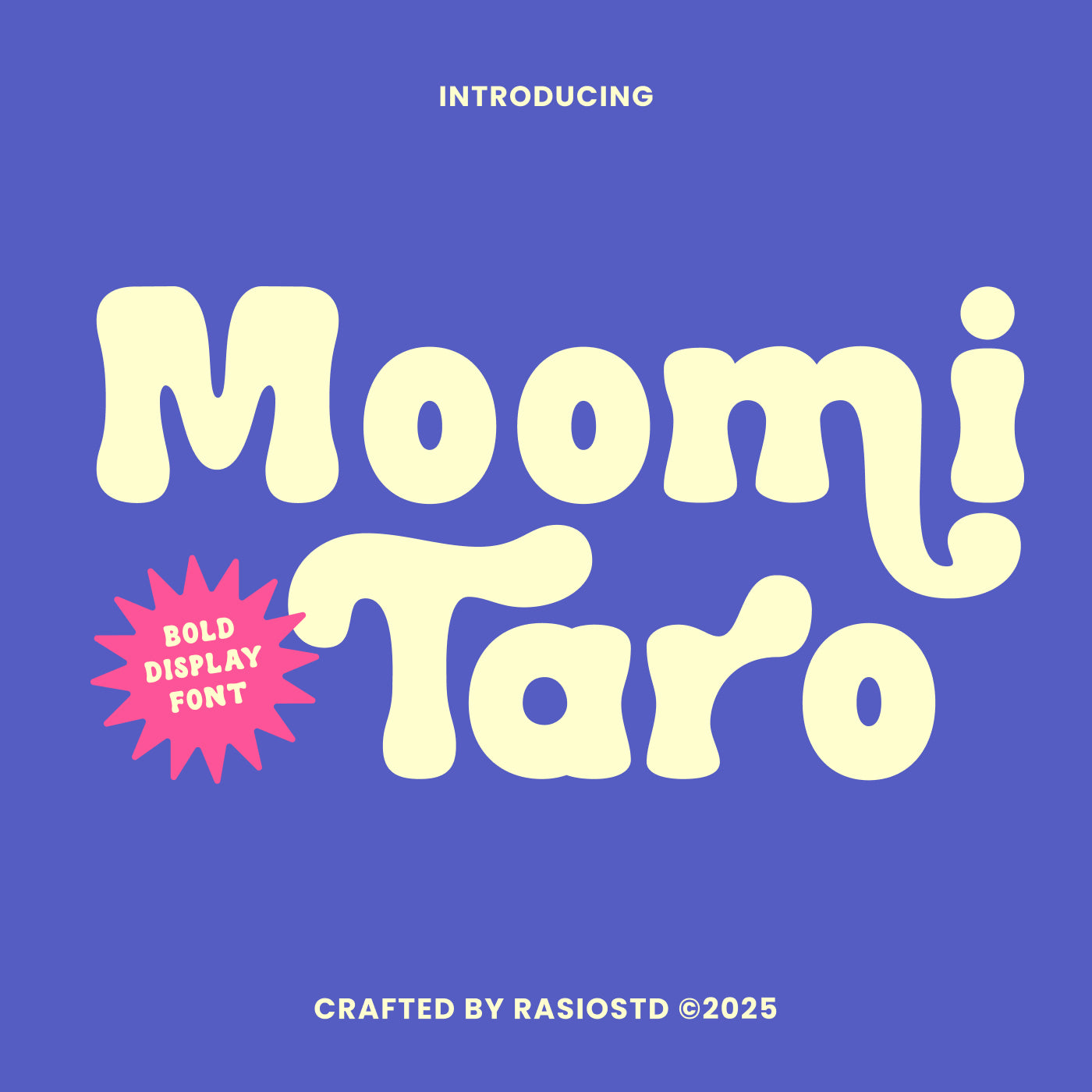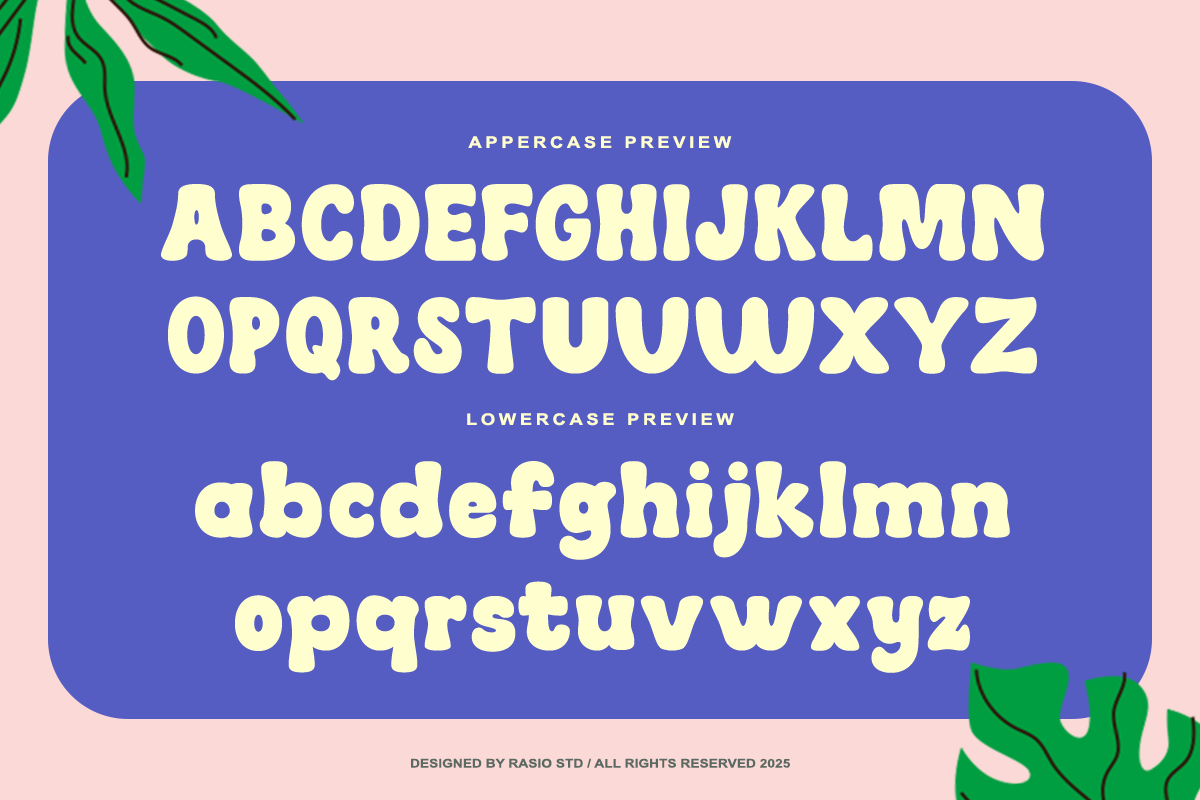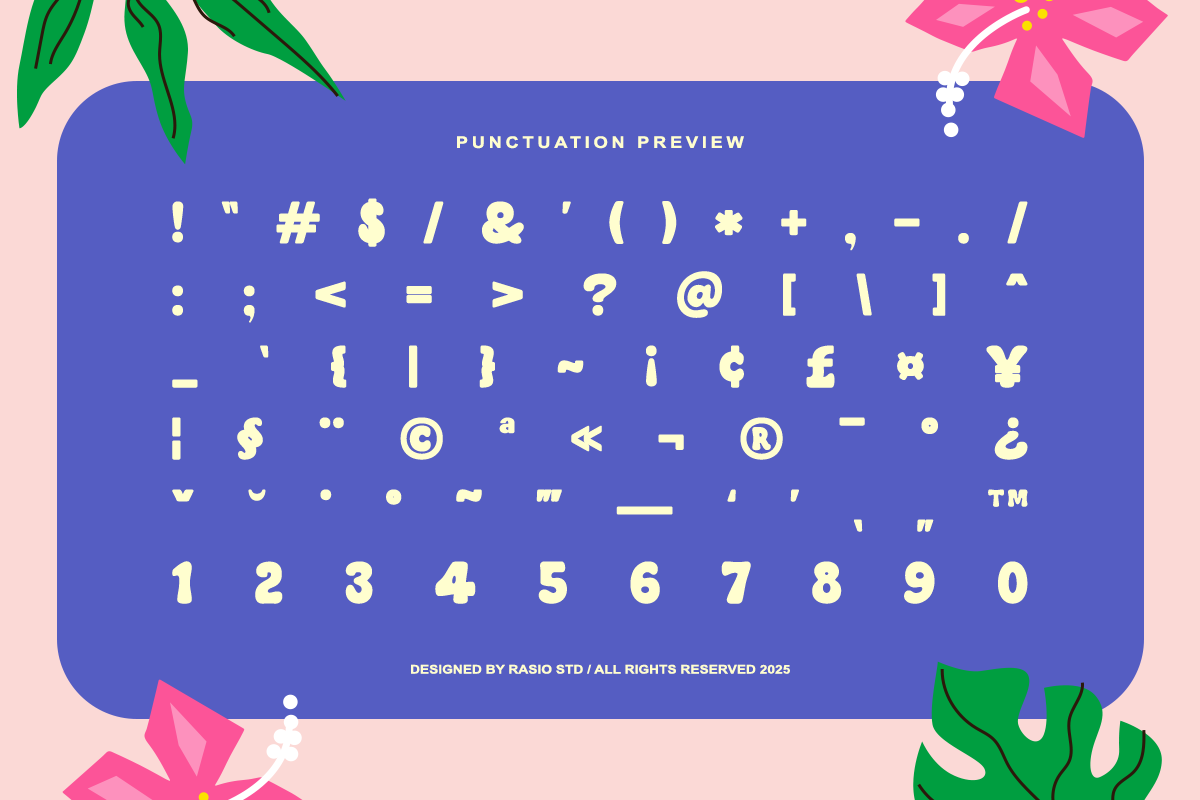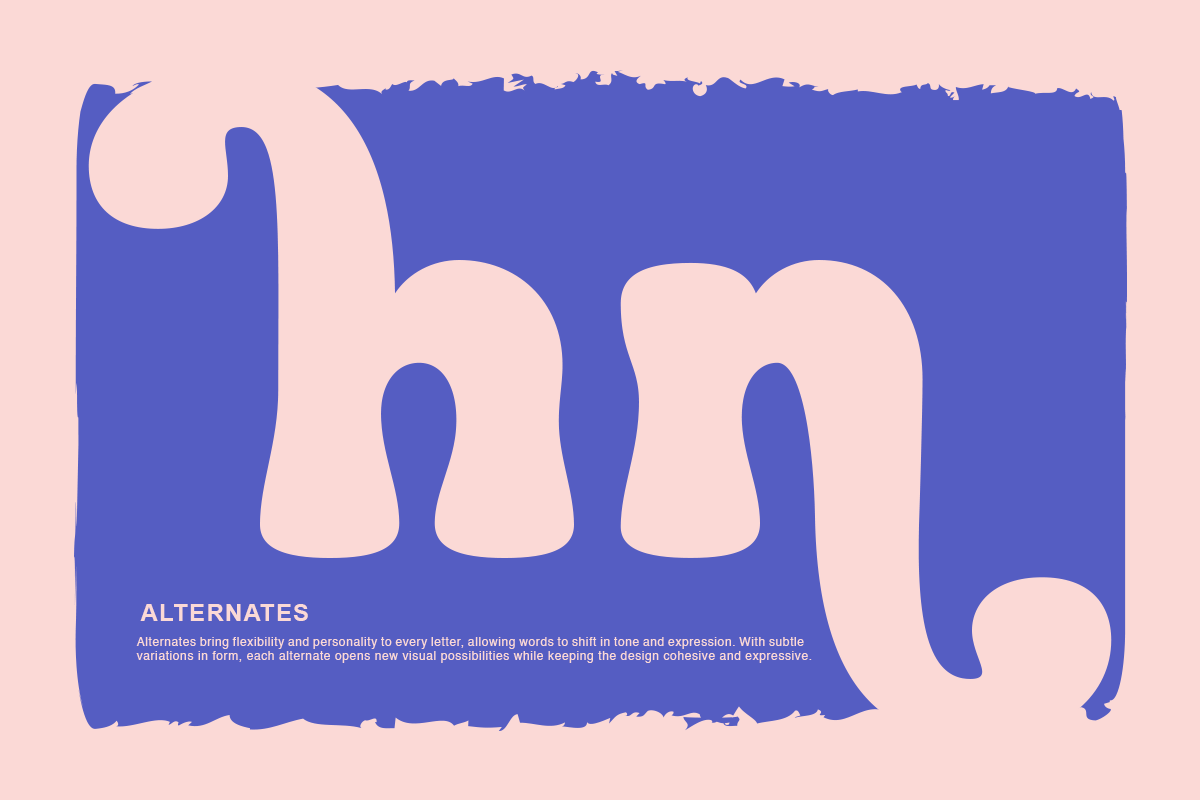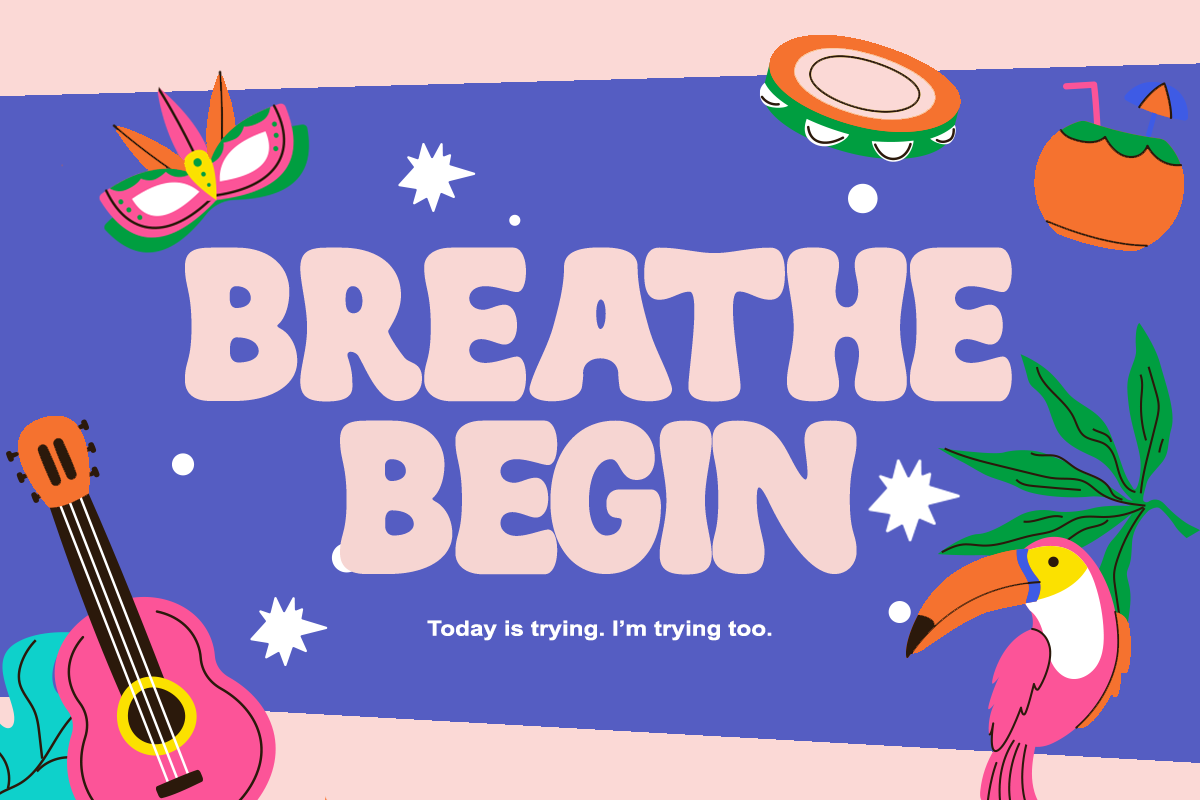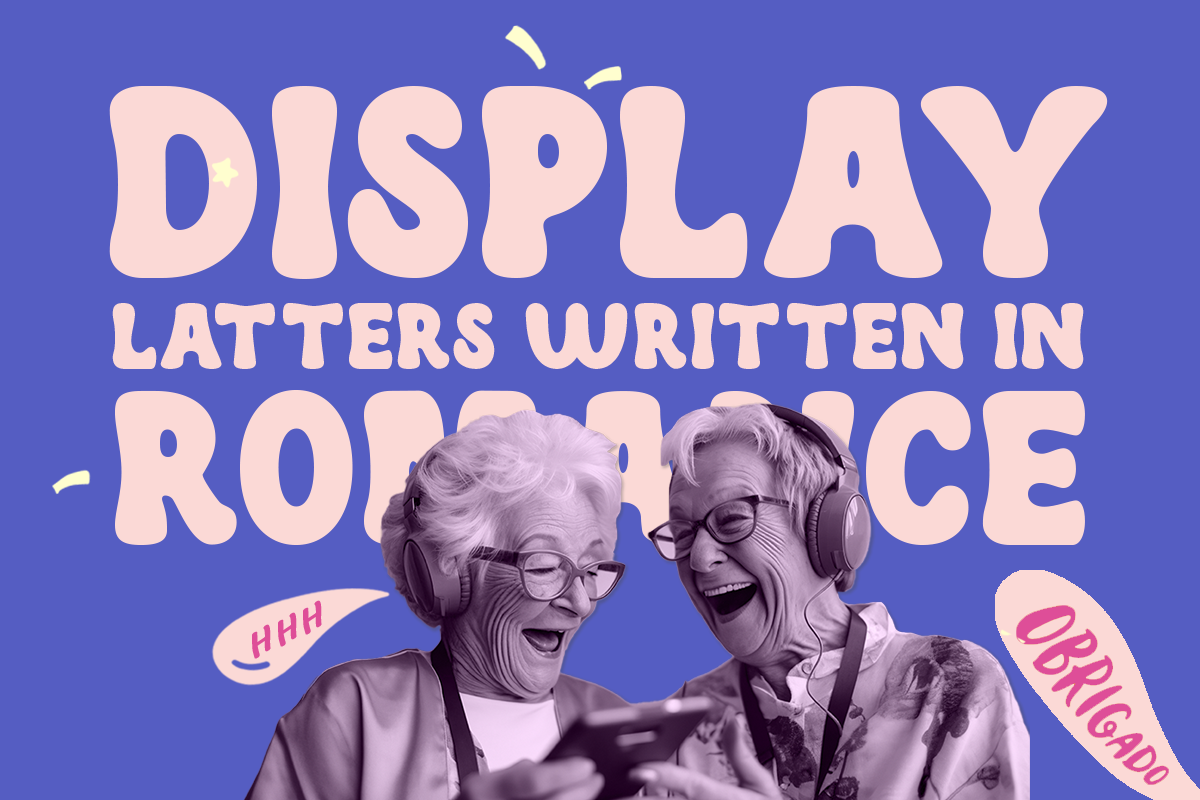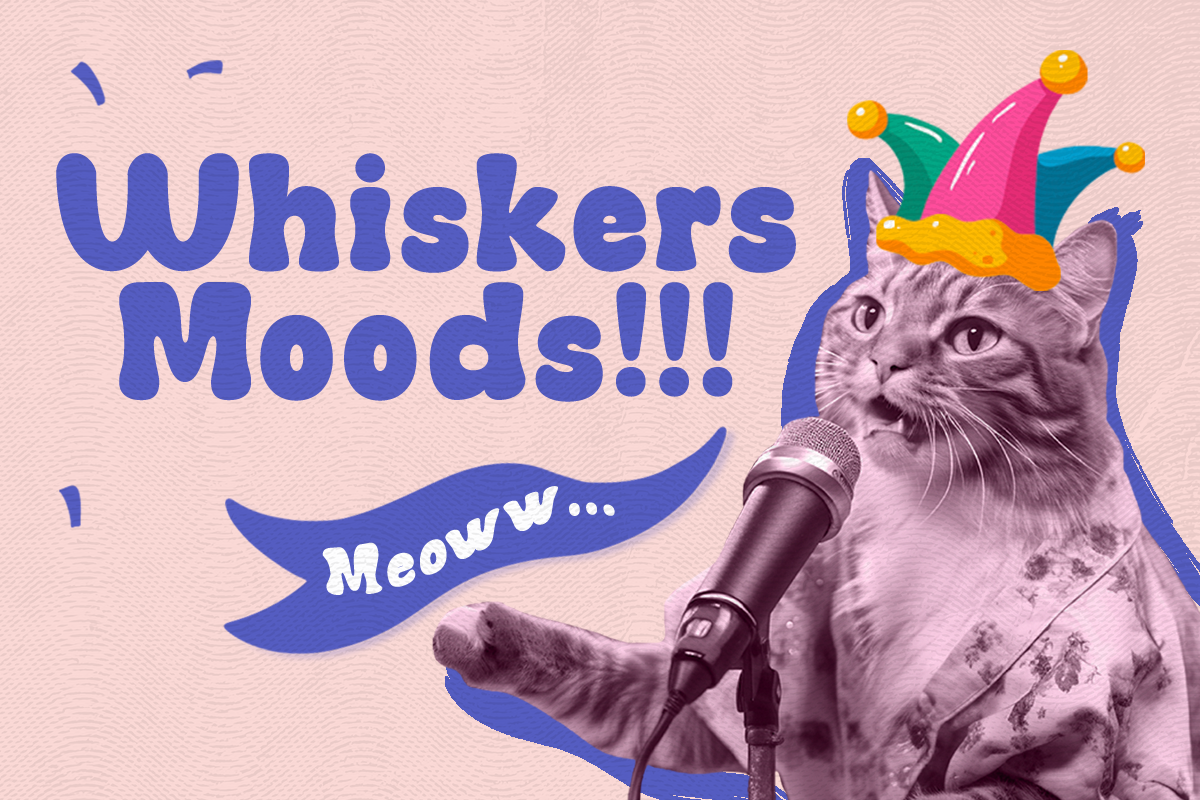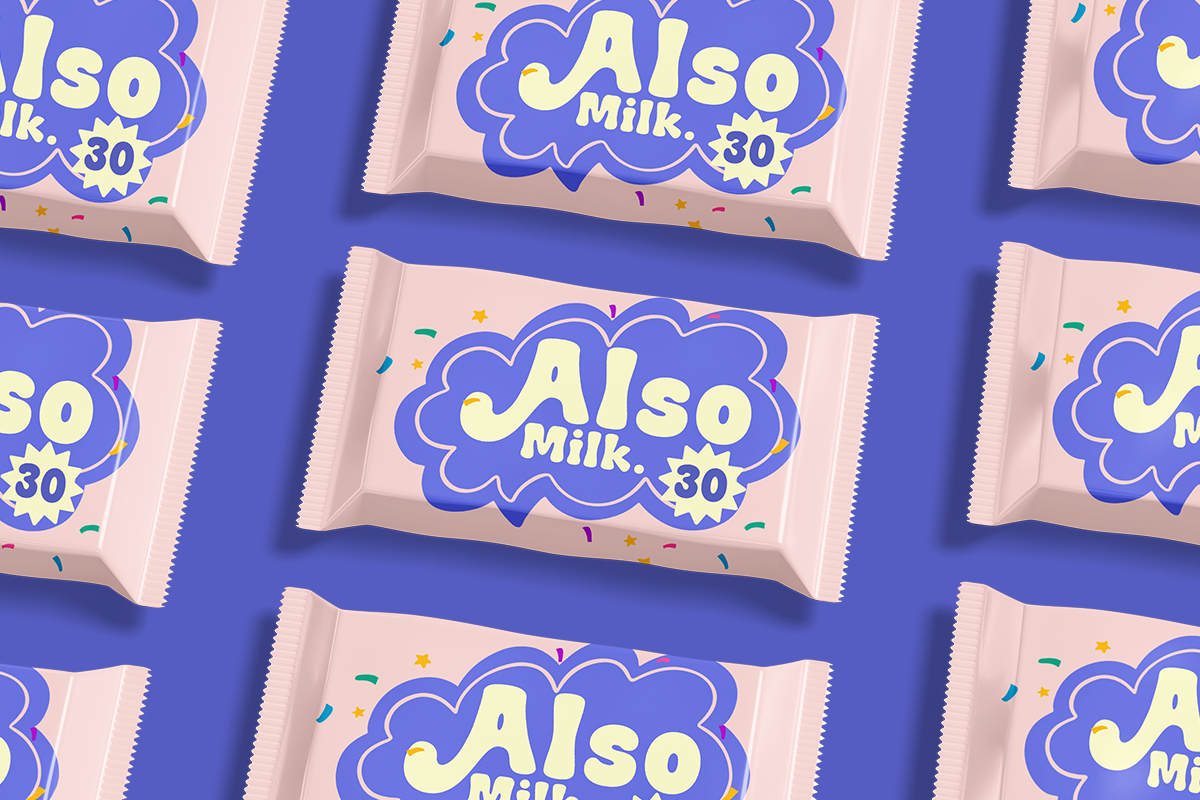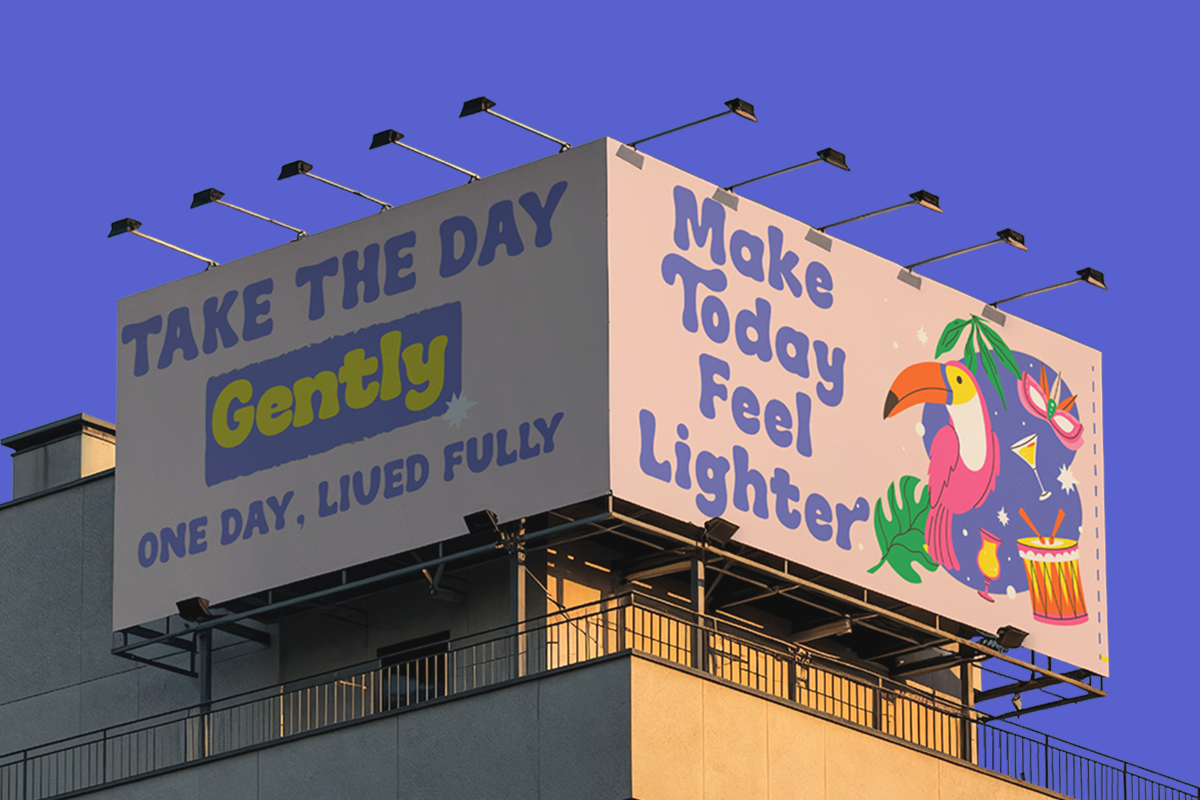
Moomi Taro Bold Display Font
Moomi Taro is a fun and quirky bold display typeface inspired by playful shapes and childhood joy. With its chunky, soft curves and friendly letterforms, this font brings instant charm and positivity to your designs. Perfectly suited for kids-themed projects, cartoons, party invitations, product packaging, and colorful branding, Moomi Taro is easy to read and full of personality. The font includes uppercase and lowercase characters with consistent visual rhythm and whimsical design language. Its fun, rounded style makes it a great choice for designers who want to create joyful, approachable visuals with a bold impact.
Relevance and Use Cases is perfect for designers working on children’s products, party stationery, toy branding, colorful packaging, fun posters, or social media campaigns. It is especially effective for projects aimed at a young audience or those looking to evoke a lighthearted, approachable feel. Whether you're creating a vibrant logo or a playful design, Moomi Taro delivers a bold and memorable visual impact.
Alternate Support
Moomi Taro is a bold, rounded display typeface with uppercase and lowercase characters, numerals, punctuation, and alternate character support. It is available in OTF, TTF, and WOFF formats.